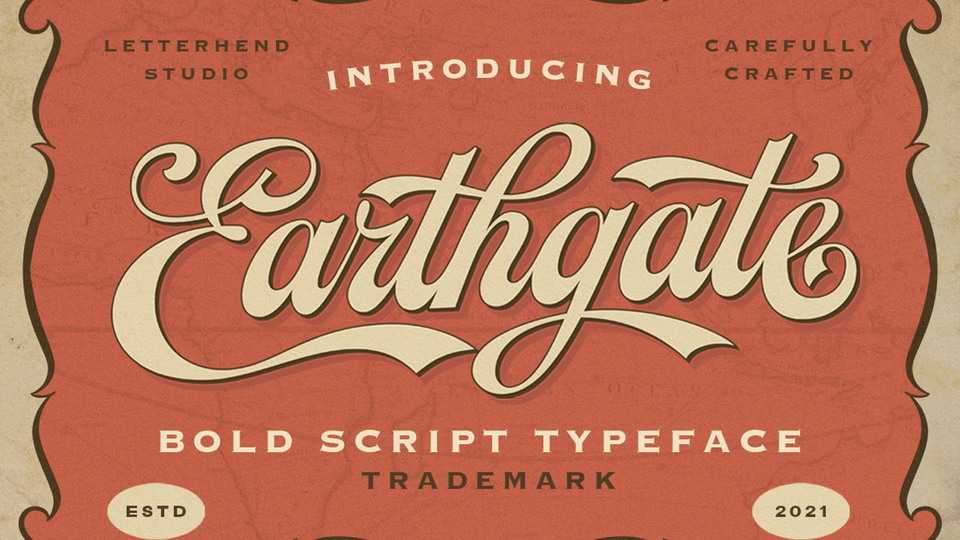
Earthgate Script Font › Fontesk
Download Earthgate font, a gorgeous and bold handwritten typeface, crafted to give your headlines and logotype projects a stylish, retro touch.